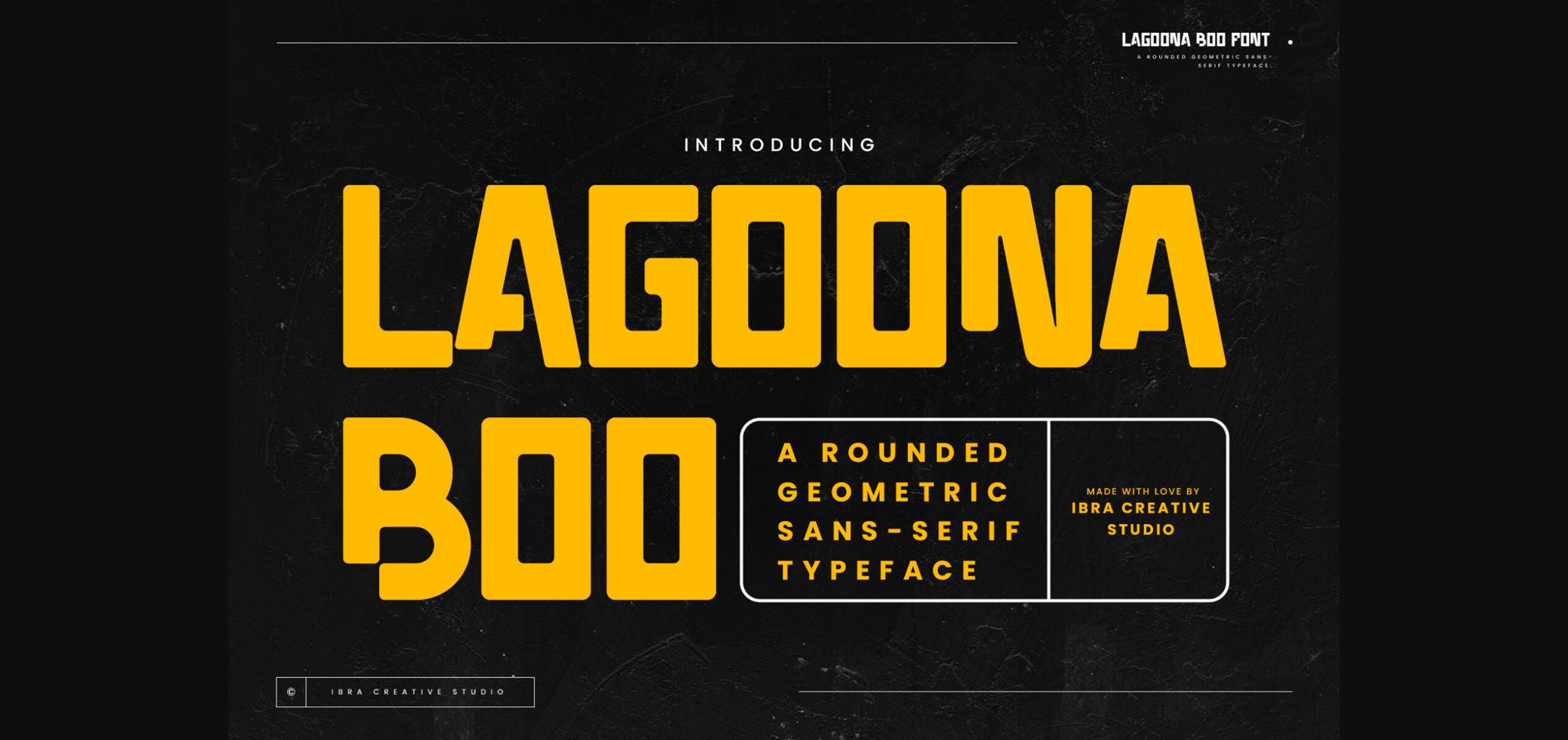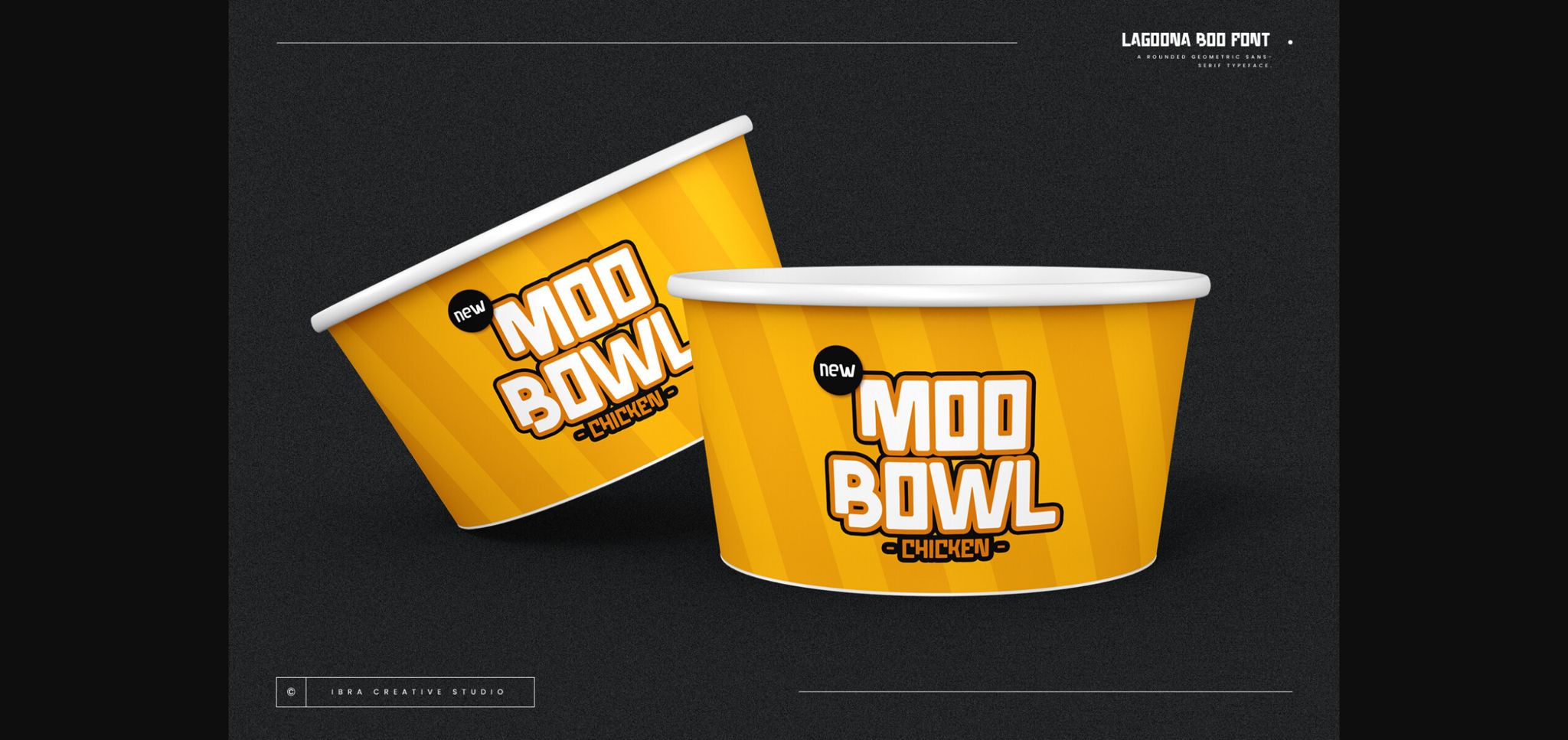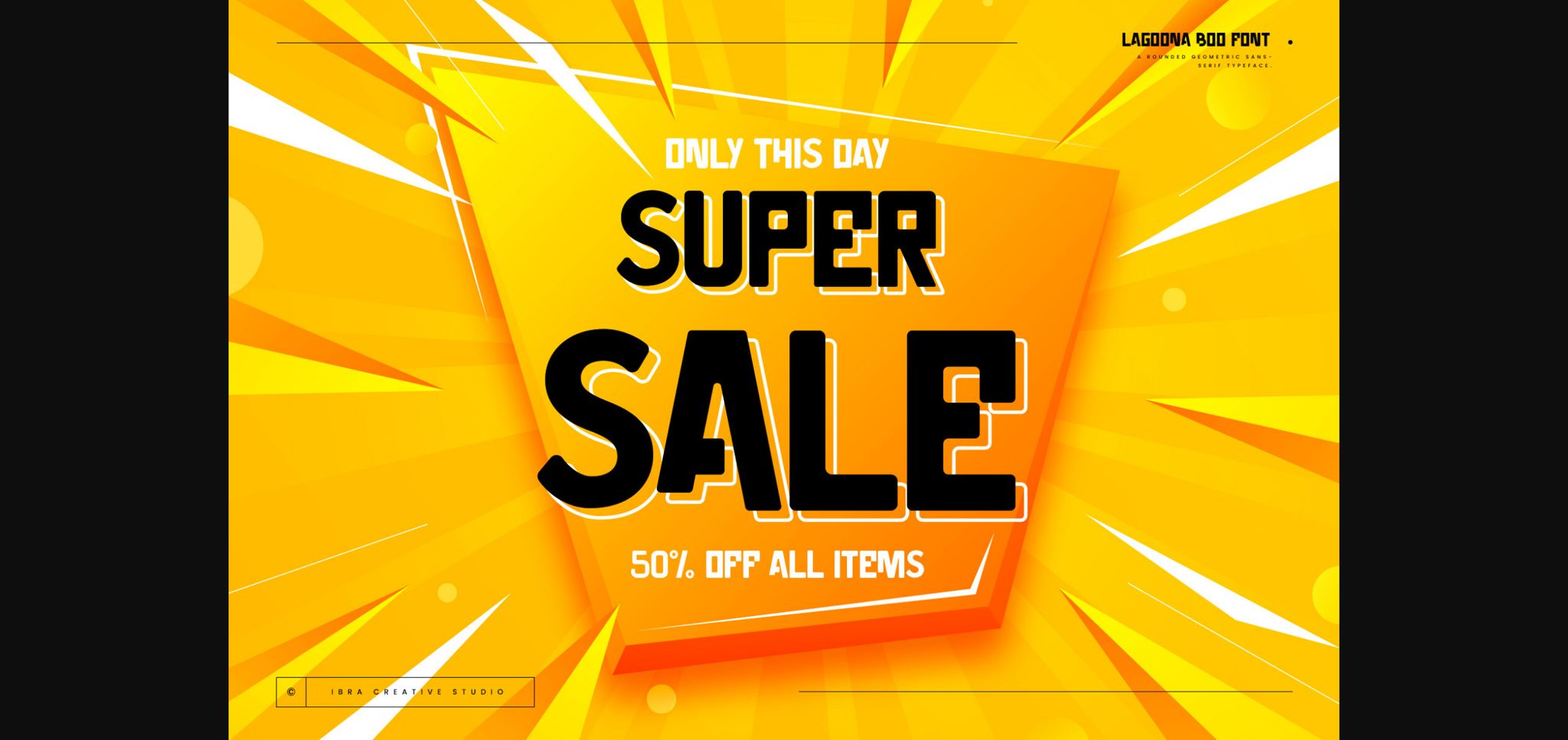
About Lagoona Boo Font
Lagoona Boo, a rounded geometric sans-serif typeface, seamlessly combines modern aesthetics with a playful and approachable charm. Its characters feature gentle curves and balanced proportions, creating a harmonious and friendly visual appeal. The rounded edges of Lagoona Boo evoke a sense of warmth and versatility, making it well-suited for a variety of design applications. The typeface’s clean and contemporary design ensures readability while infusing a touch of whimsy, making it an ideal choice for projects seeking a balance between professionalism and a lighthearted, engaging aesthetic.